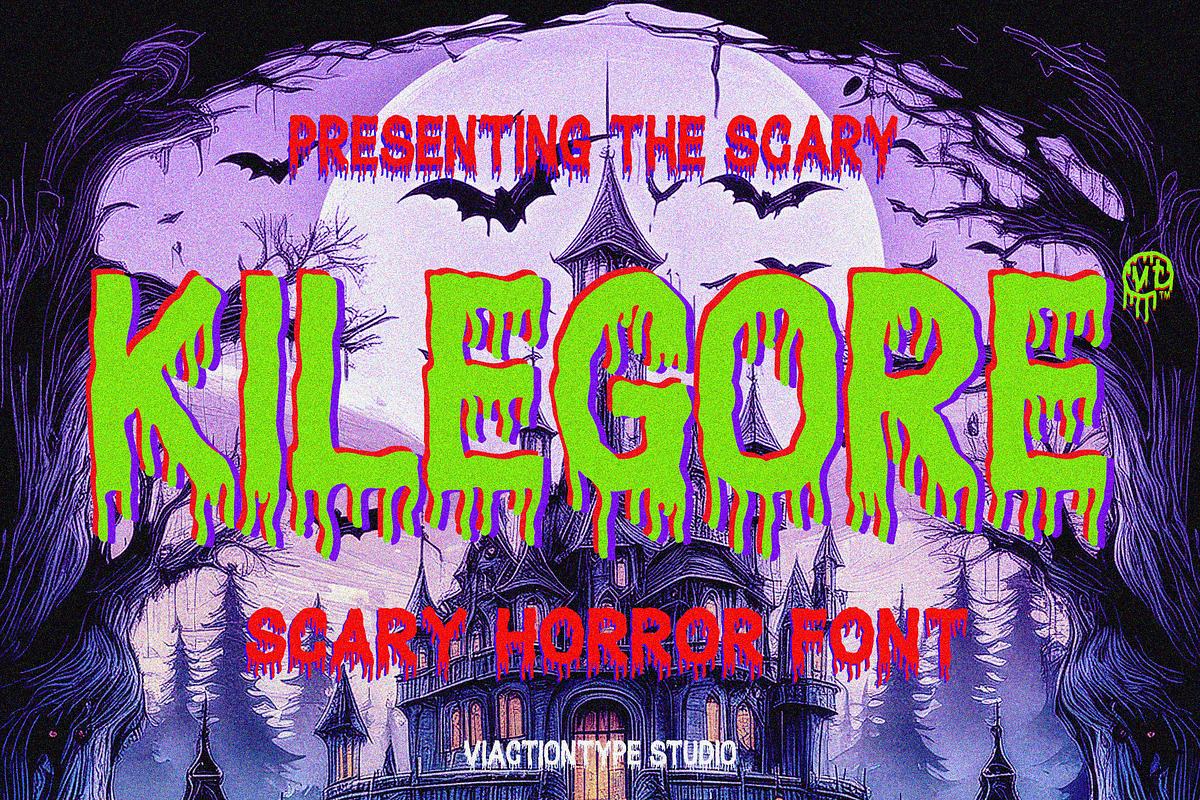
VT Kilegore - Scary Horror Font Free Download
VT Kilegore – Scary Horror Font Free Download
VT Kilegore – Scary Horror Font Free Download is a chilling display typeface designed to evoke fear and suspense with every letter. Featuring jagged edges, distressed textures, and an eerie, hand-drawn vibe, this font is perfect for horror movie titles, Halloween posters, haunted house flyers, spooky games, and thriller-themed merchandise.
Whether you're crafting blood-curdling headlines or creating creepy visuals, VT Kilegore – Scary Horror Font Free Download delivers high-impact, cinematic style with terrifying flair. It’s bold, gritty, and designed to send shivers down the spine.